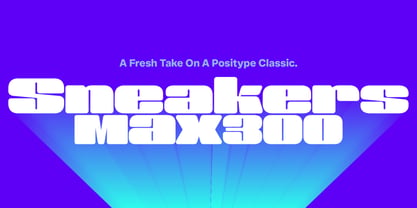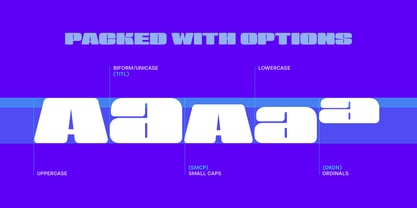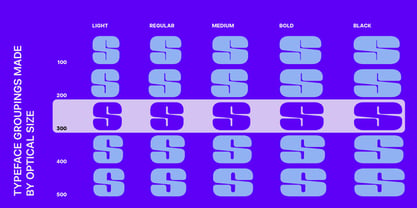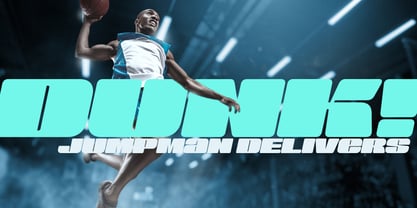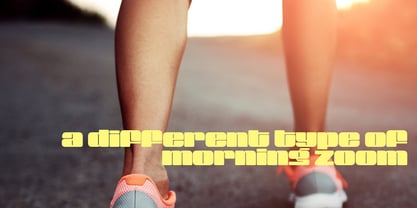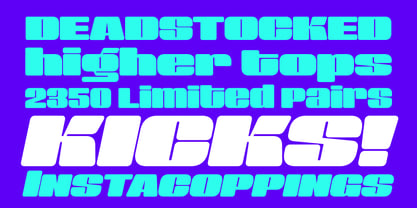
Sneakers Max 300
Die Schriftfamilie Sneakers Max 300 wurde von Neil Summerour entworfen und von Positype veröffentlicht. Sneakers Max 300 enthält 10 Stile. Mehr über diese Familie
Sneakers was a typeface that I originally drew all the way back in 2005, with a release in 2006. Its most recent iteration, Sneakers Pro was released in 2009. Since then, the idea of reworking the design has lingered in the back of my head, but I wanted to add additional flexibility and value to anything offered beyond the originals. Sneakers Max does just that and I am happy to see it released and available to everyone. Sneakers Max raises the bar in terms of functionality… incorporating all of the options found in Sneakers Pro (e.g. Small Caps and a biform/unicase located now in Titling Alternates), but it expands the character offering, improves on letter designs (everything was redrawn) and explores more flexible settings by providing 5 distinct counter widths to keep more uniform multi-line settings with mixed letter heights. Special thanks to Potch Auacherdkul for his additions to the original character set and for his engineering skills.
Positype was founded by Neil Summerour in 2000. A trained designer, lettering artist, and calligrapher, Summerour established Positype to accentuate the craft behind producing typefaces. The subtleties of mass, perfect imperfections, warmth, and uniqueness are foundational tenets to developing the foundry’s commercial offerings with the ultimate goal of producing useful and reliable fonts.These ideals are reflected in our diverse retail catalog, offering an array of fonts tailored for an extensive spectrum of applications, spanning from understated and practical to bold and ornamental. These fonts are available for licensing, adaptable for both physical and digital mediums.